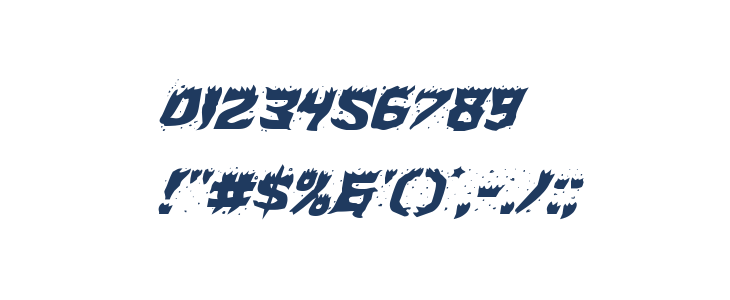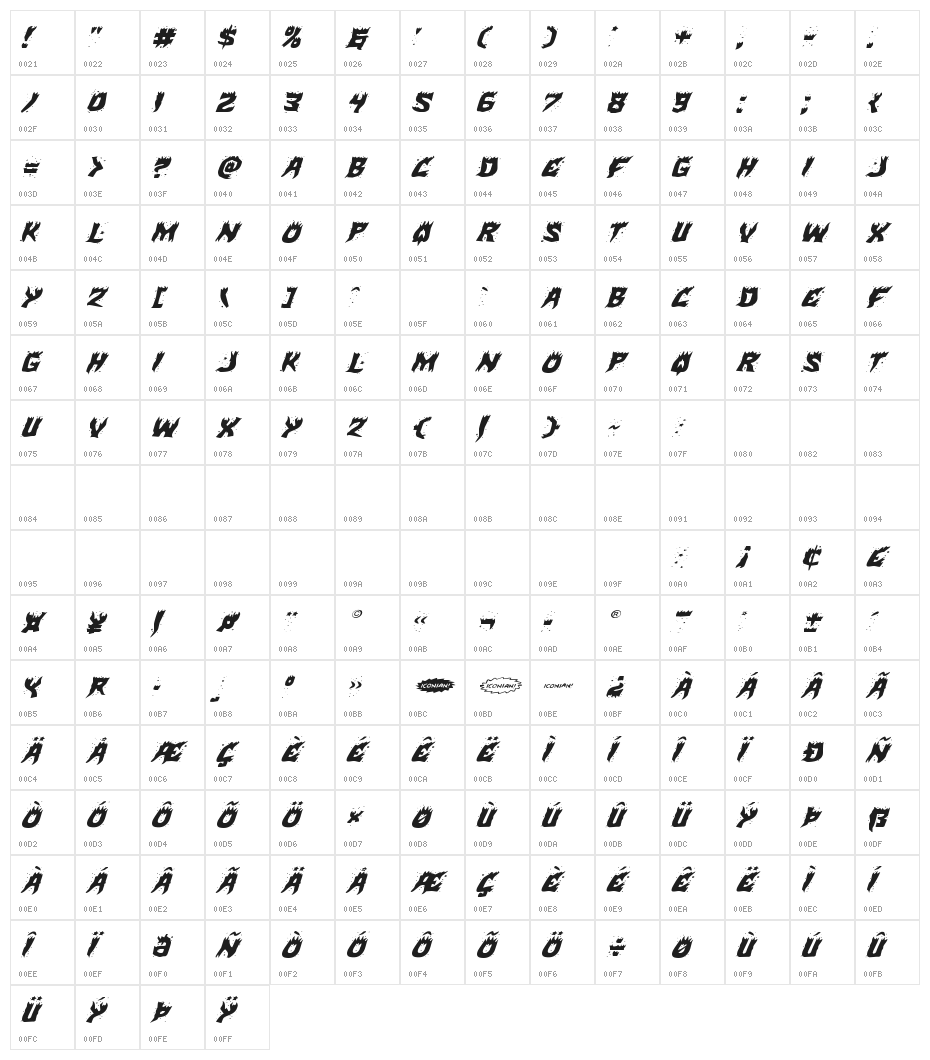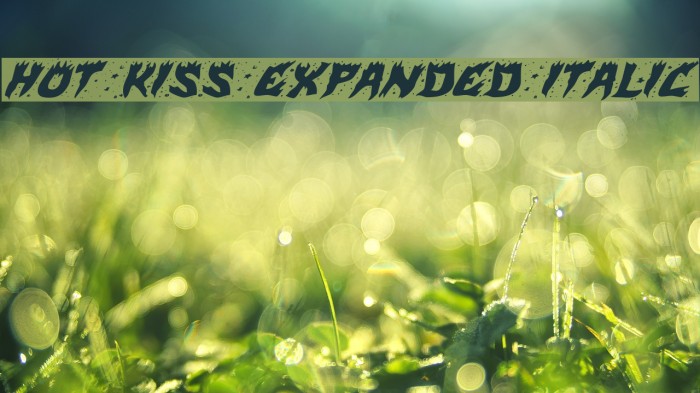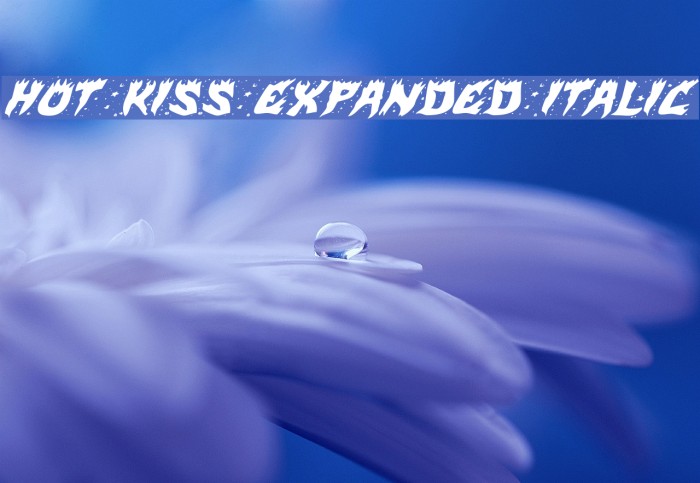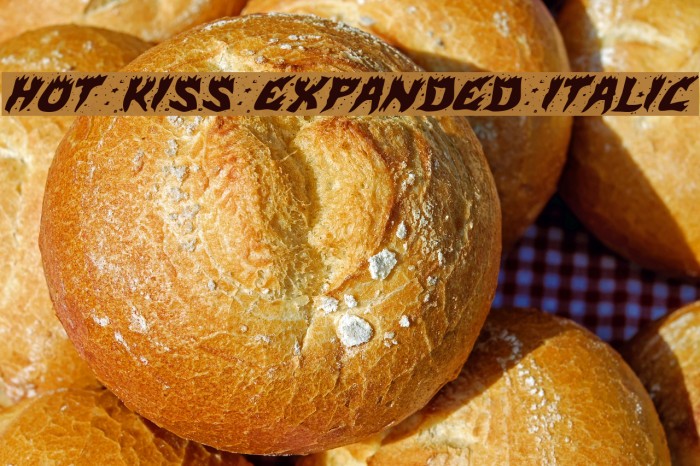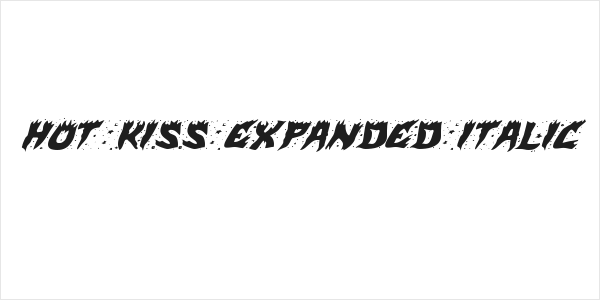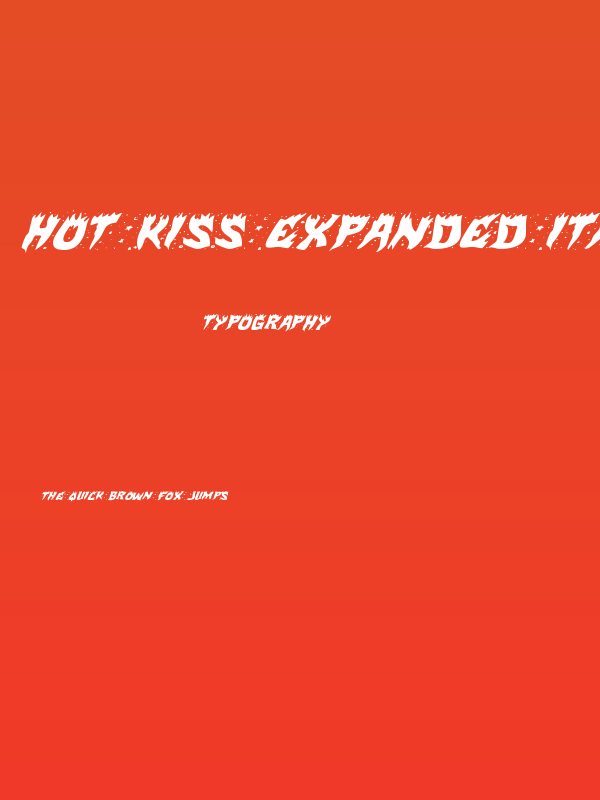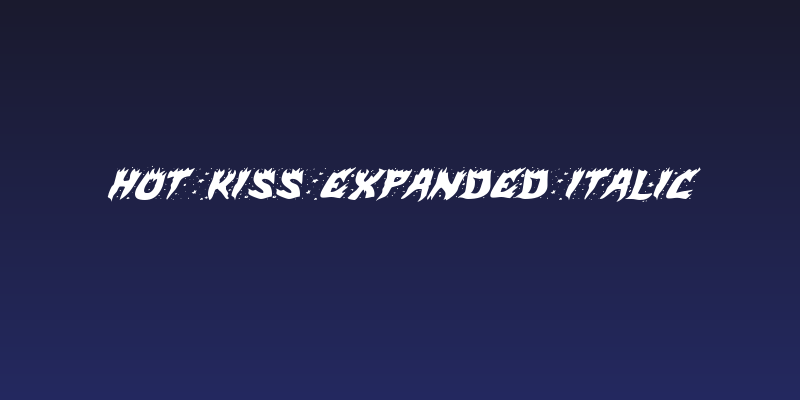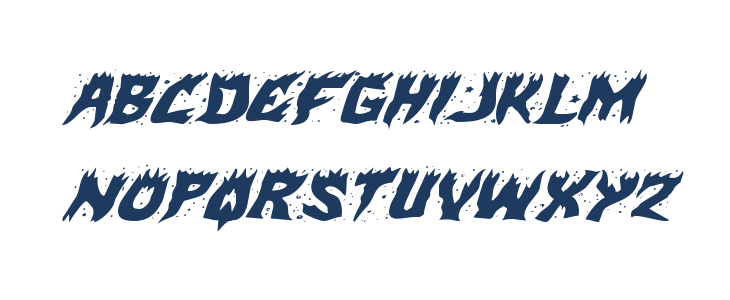
Hot Kiss Expanded Italic Font
Hot Kiss Expanded Italic Description
This font features a bold and dynamic style with an italic slant, giving it a sense of motion and energy. The characters are designed with sharp, jagged edges and irregular shapes, creating a distressed and edgy appearance. The expanded width of the letters adds to its bold presence, making it stand out in any design. The font's unique style is reminiscent of graffiti or street art, with a modern twist. It includes a full set of uppercase and lowercase letters, numbers, and a variety of special characters, all maintaining the same energetic and bold aesthetic.
Proposed ProjectsIdeal for music album covers, event posters, streetwear branding, and any project needing a bold, energetic look.